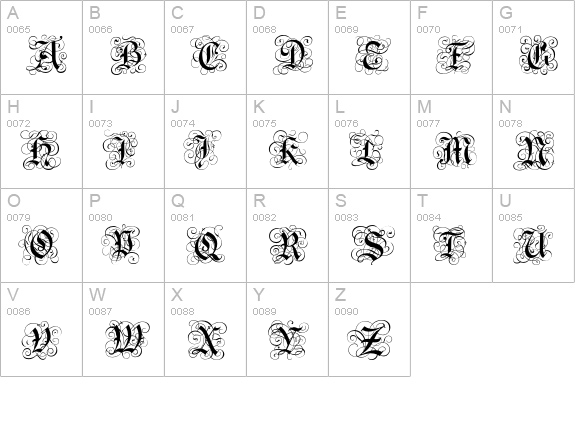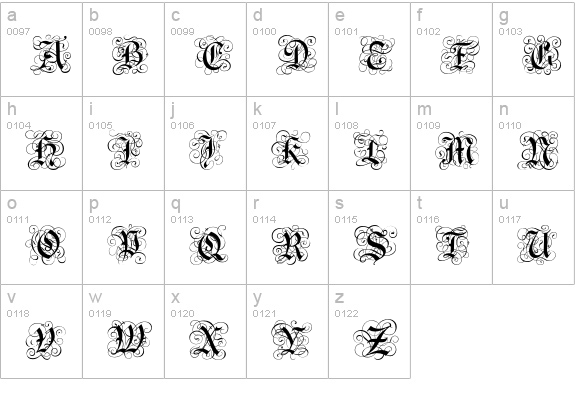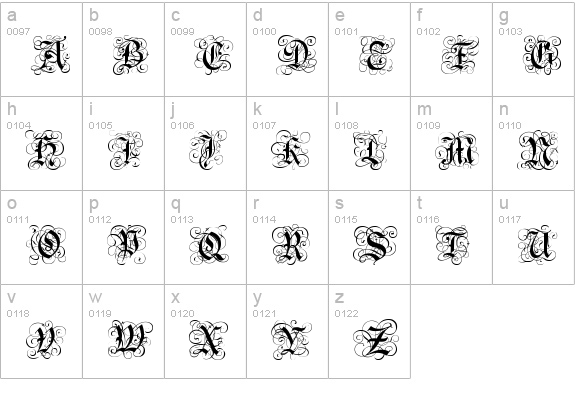
Prodigal Font Details
Prodigal font is a modern and stylish typeface that effortlessly combines elegance with a touch of playfulness. With its sleek lines and subtle curves, this font is versatile and perfect for a wide range of design projects. The Prodigal font is bold yet refined, making it ideal for headlines, logos, and branding materials. What's even better is that Prodigal font is completely free to download at FontsMarket.com! This means that you can add this beautiful font to your collection without any cost. So go ahead and elevate your designs with Prodigal font today!